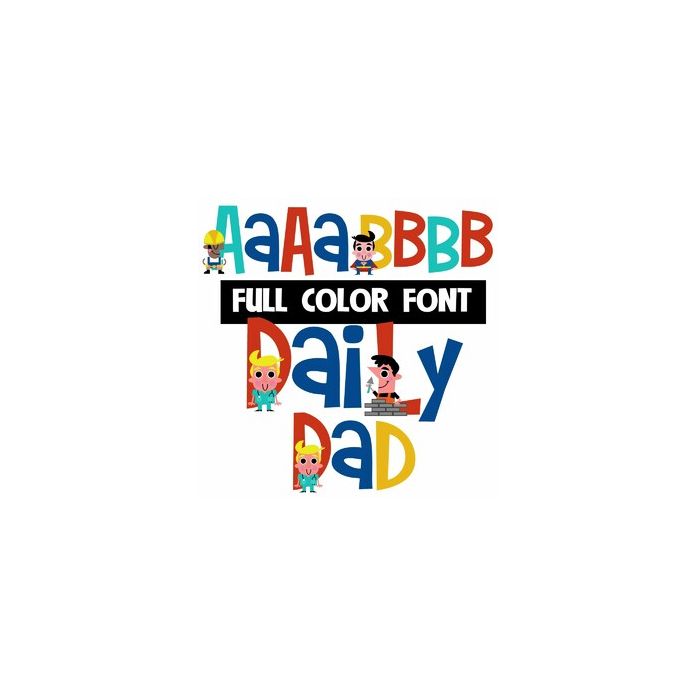
This full-color font features dads of all occupations doing their thing on the uppercase only. There is an alt uppercase of a different color you can access through your system's glyph map.